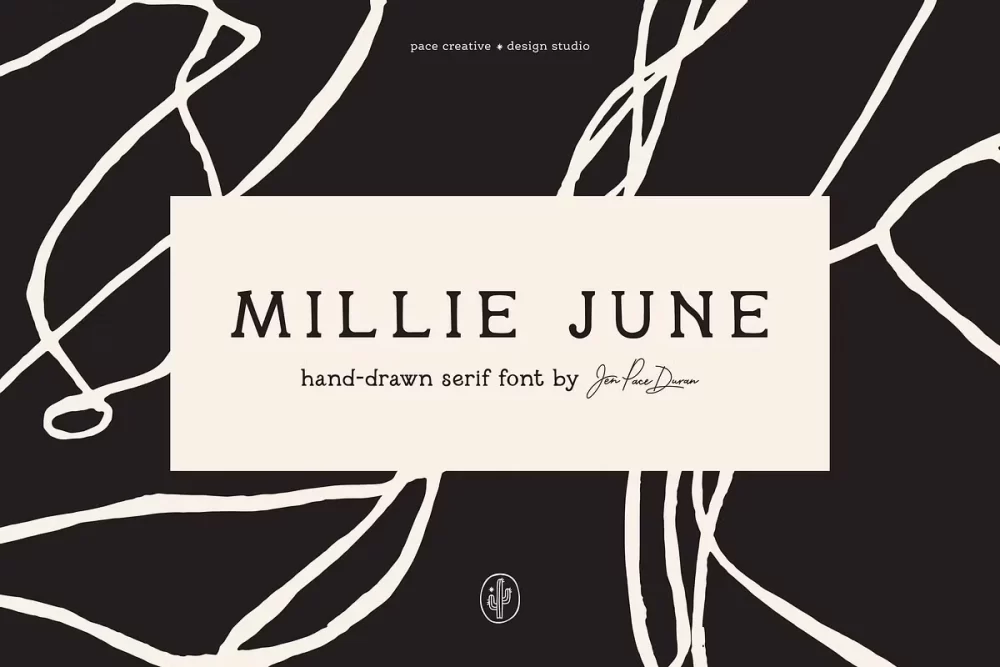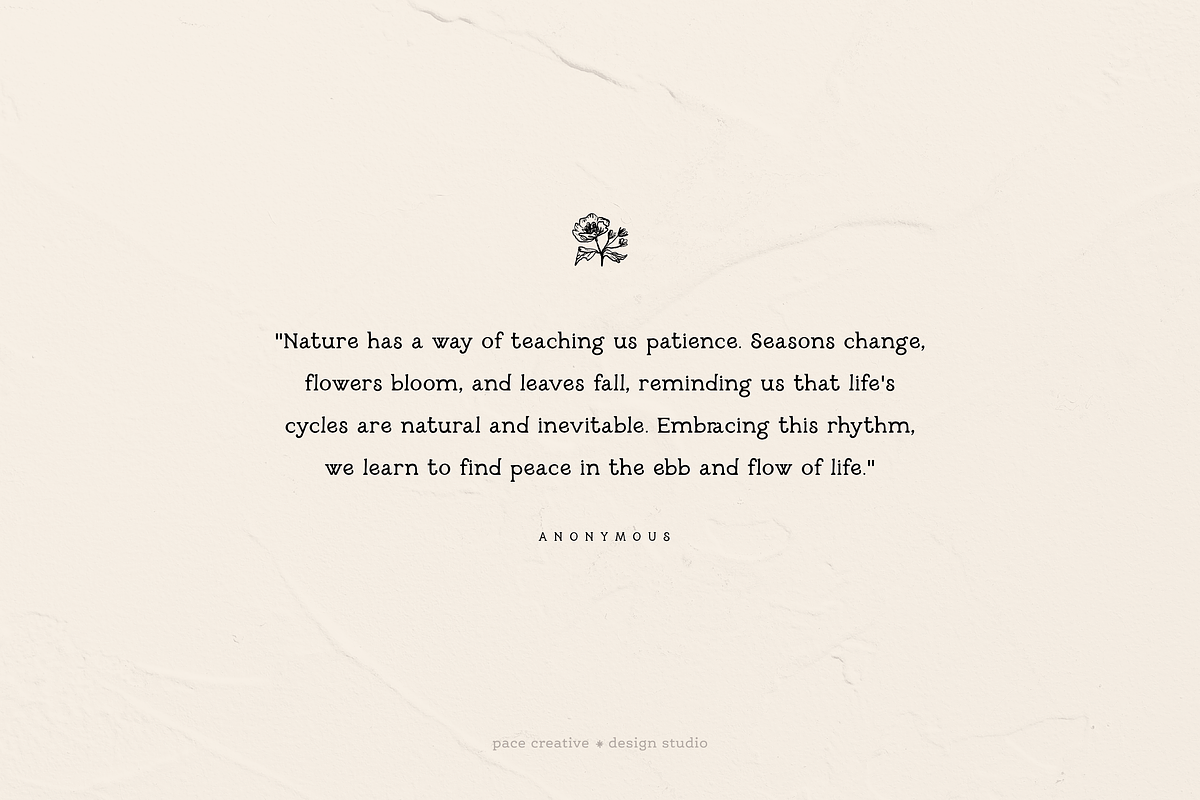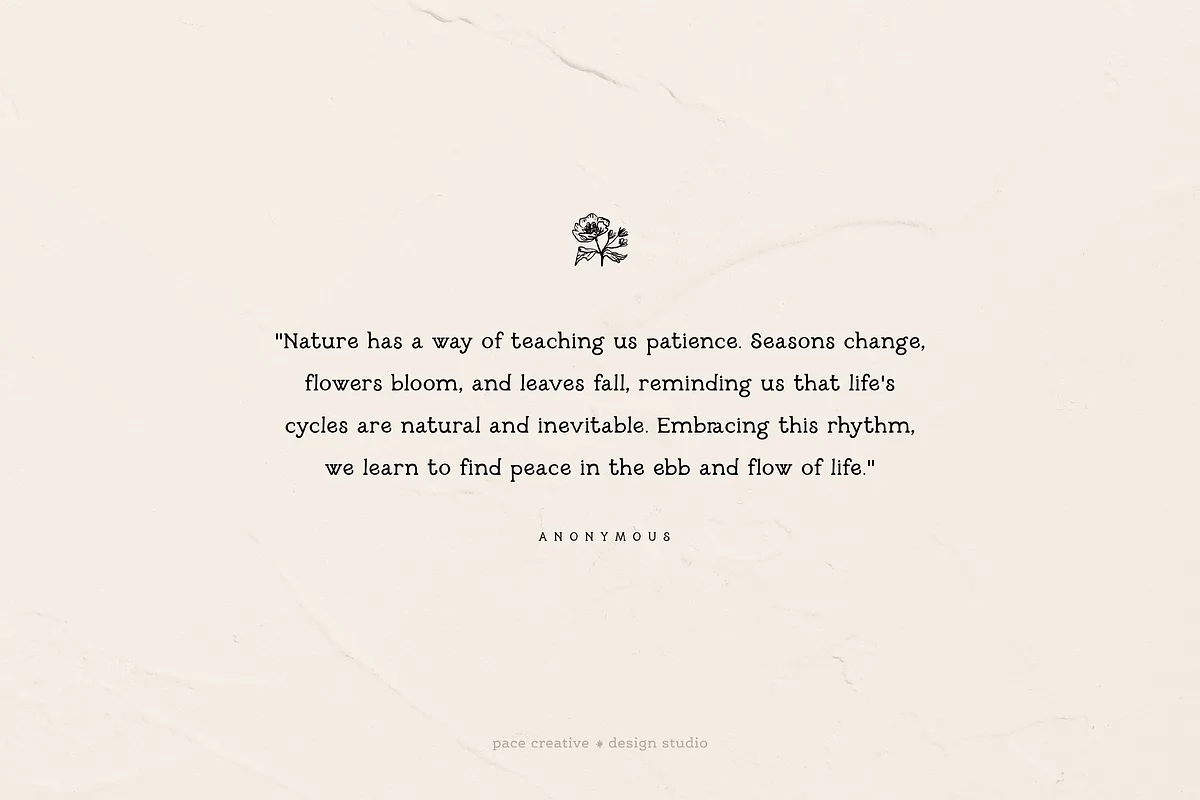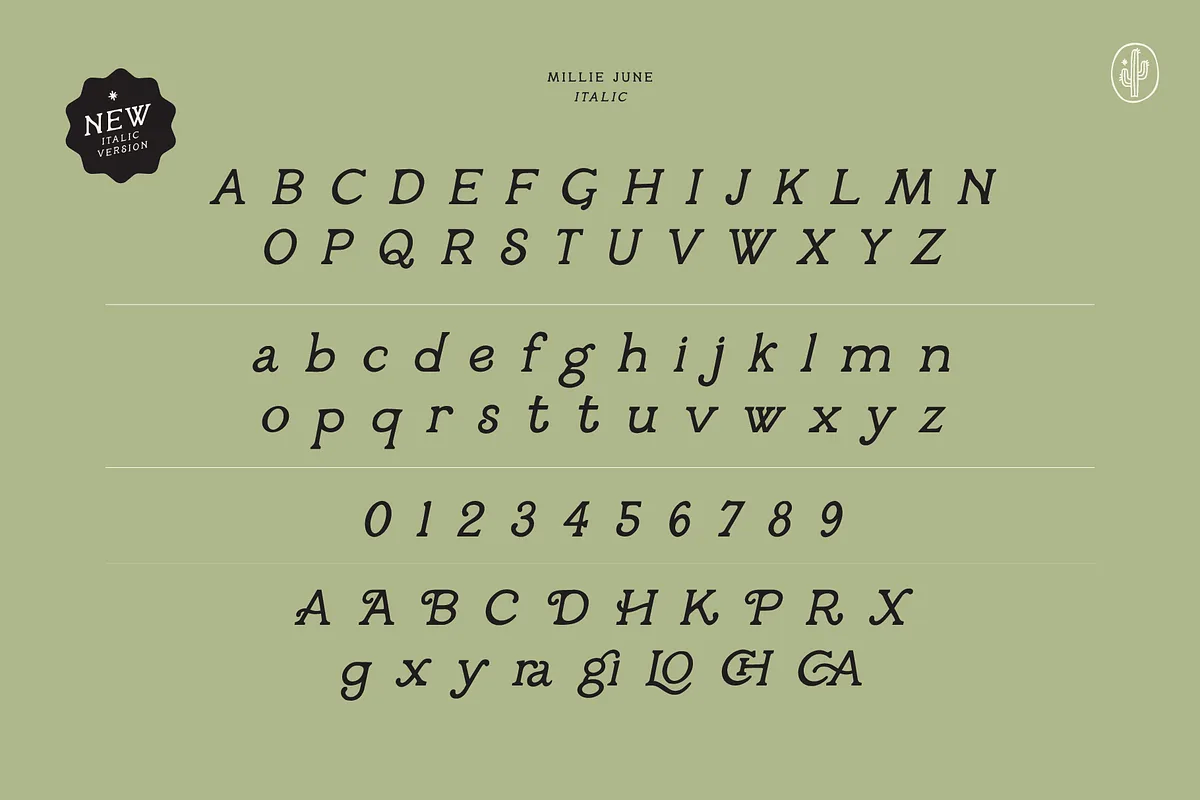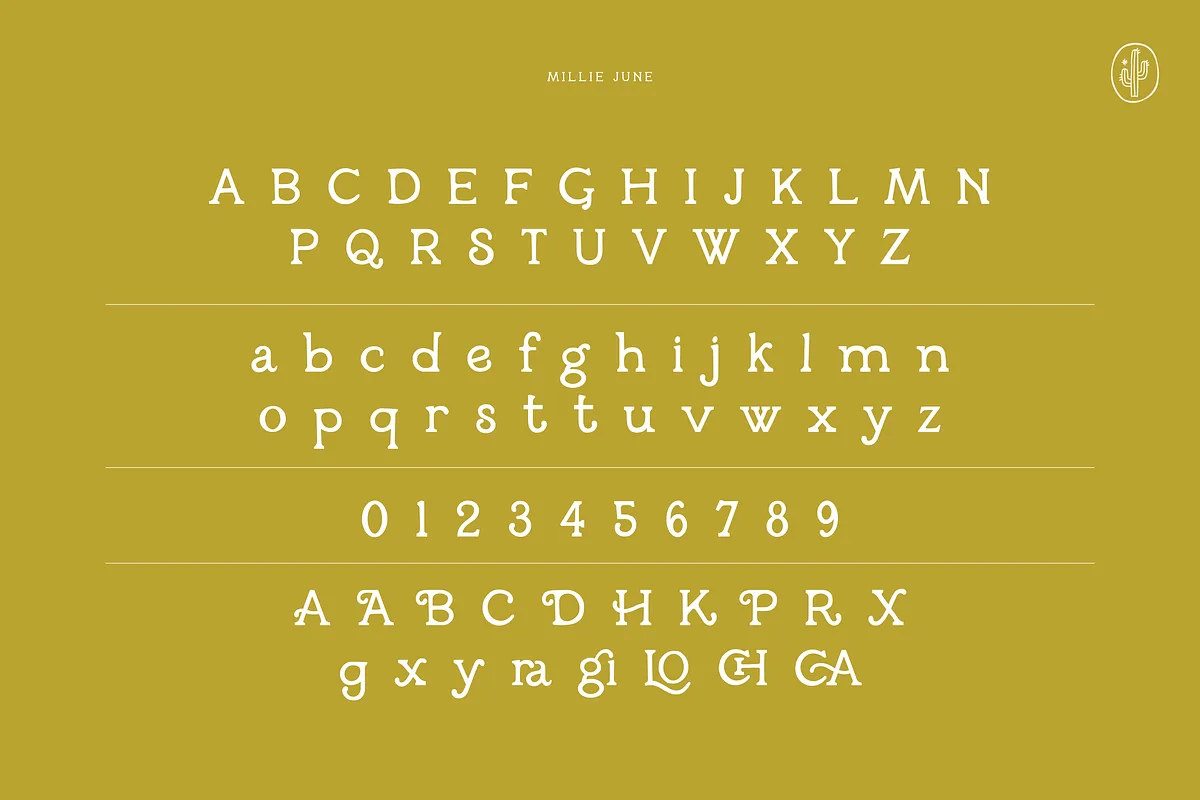
Millie June is a vintage-inspired hand-drawn serif font that exudes endless charm. Embracing its imperfections, this font has an endearing allure. With a nod to vintage and southern aesthetics, Millie June captivates with its chic and quirky character. Crafted with love, it brings a touch of nostalgia and sophistication to your designs, creating a perfect balance of classic elegance and contemporary allure. Unleash your creativity and infuse your branding, packaging, stationery, or other design projects with the unique charm of Millie June font.